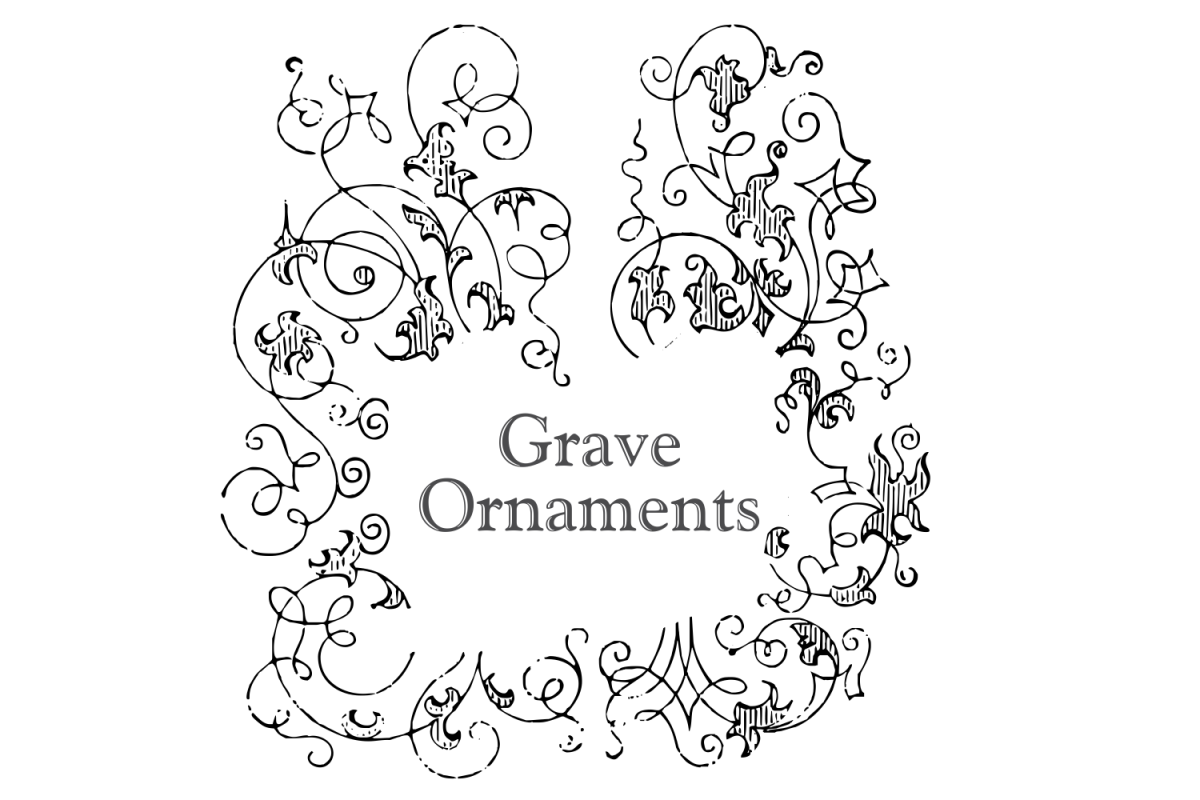
Grave Ornaments
GraveOrnaments
Grave Ornaments is a classic serie of victorian ornaments. Ideal to use in in display purposes for a stylized type design. Take a look in attractive packs of another fonts of this family :